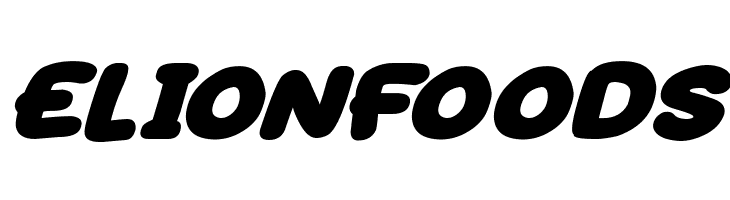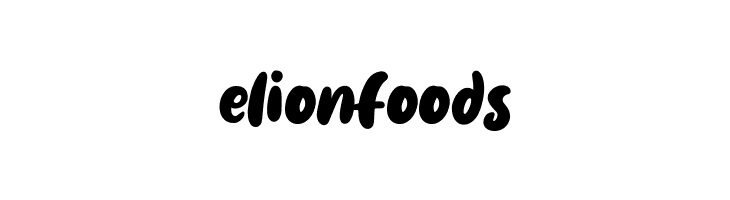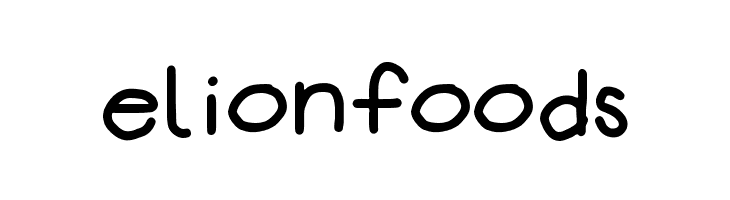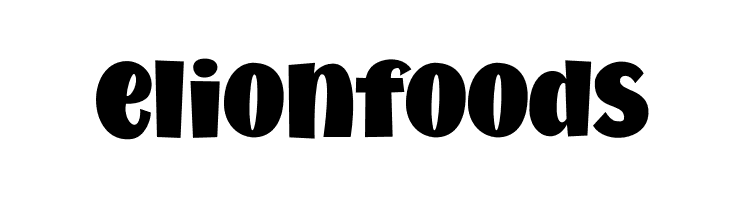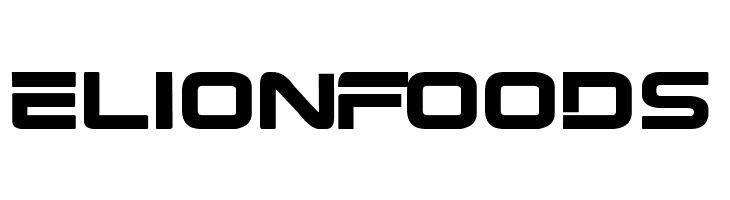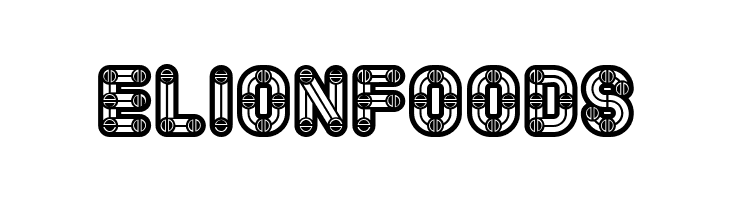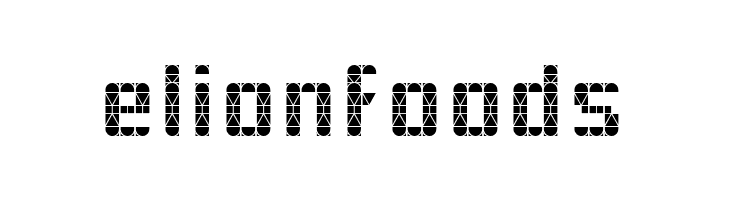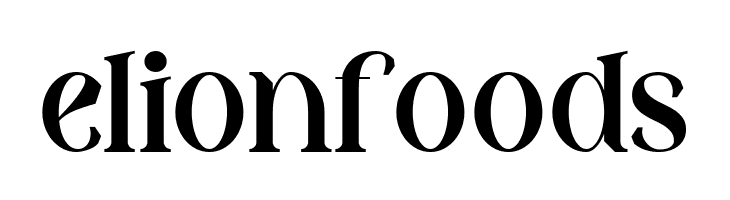
A bold, playful, and rounded italic font with a smooth, dynamic appearance.
A bold, playful font with rounded edges and a hand-drawn feel.
A bold, playful display font with exaggerated strokes and whimsical curves.
A bold, decorative font with intricate geometric patterns inside each uppercase letter.
A bold, geometric font with a hypnotic, decorative style.
A bold, geometric font with a textured, modern design.
A decorative serif font with elegant curves and sharp serifs.
A classic italic typeface with a refined and elegant style.